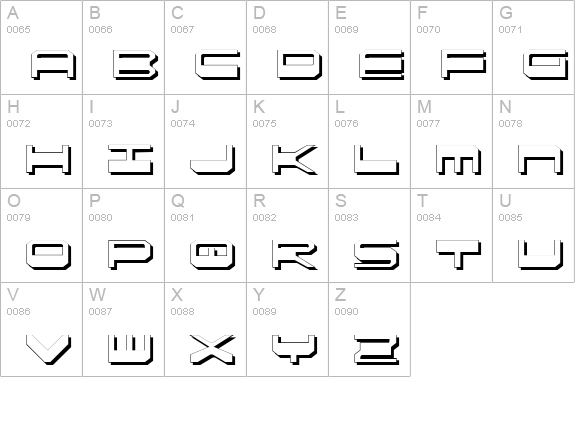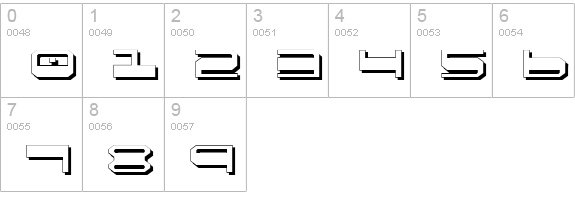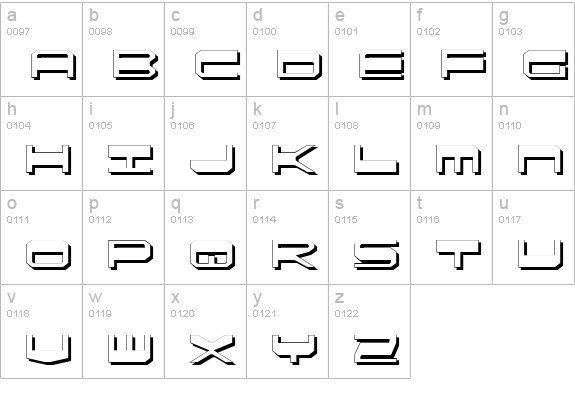
Introducing QuickGear Shadow, a dynamic and versatile font that brings a touch of elegance and modernity to your design projects. With its sleek and refined appearance, this typeface is perfect for adding a sophisticated edge to logos, headlines, posters, and more. The QuickGear Shadow font is meticulously crafted to capture attention and engage viewers. Its unique shadow effect creates a multi-dimensional look, adding depth and dimension to your designs. Bold and eye-catching, this font is sure to make a lasting impression. But that's not all - the best part is, QuickGear Shadow is available to download for free at FontsMarket.com! This means that you can enjoy the high-quality and professional design of this font without any cost. Whether you're a professional designer or a hobbyist, everyone can access and utilize this incredible font without breaking the bank. With its extensive character set, QuickGear Shadow offers a wide range of possibilities. From uppercase and lowercase letters to numerals, punctuation, and special characters, this font has everything you need to bring your creative visions to life. Its clean and crisp lines ensure legibility, even at smaller sizes, making it suitable for a variety of applications. So why wait? Download QuickGear Shadow today from FontsMarket.com and elevate your designs to new heights. Its versatility and free availability make it a must-have addition to any designer's toolkit. Don't miss out on the opportunity to enhance your projects with this remarkable font. Embrace the power of QuickGear Shadow and watch as your designs shine with style and sophistication.